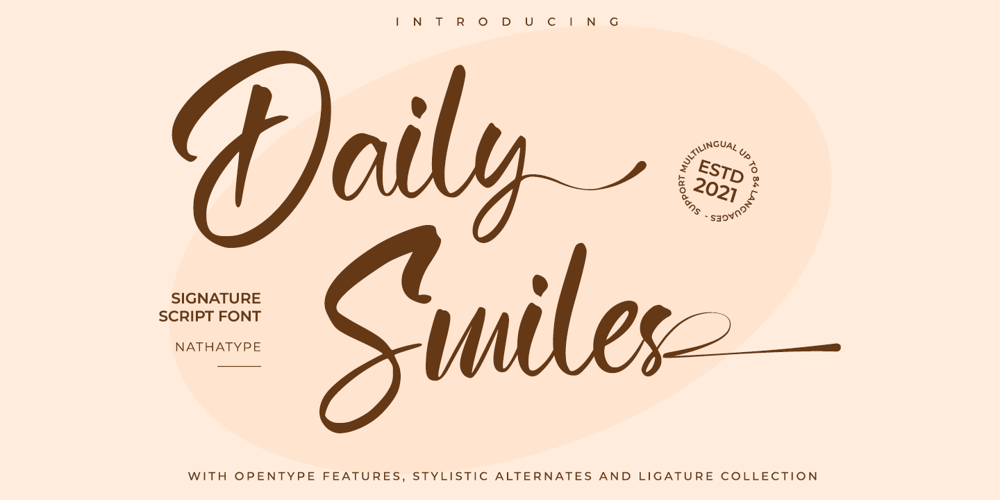
Daily Smiles Font Family was designed by Donis Miftahudin and published by Nathatype. Daily Smiles contains 1 styles and family package options. Are you looking for a font that speaks beauty? Do you dream of creating headings that stand out and inspire creativity, imagination, and endless fun? Wait no more, we will give you the best choice.Daily Smiles-A Signature FontInspired by the recent print design trend, the look of the script typeface is elegant and beautiful. Everything’s well with cursive! Show your opulence and decadence with this fancy font and blow your audience’s mind away as you put these cursive letters in your projects. Every detail of this beautiful font making it easy to present your brand or project in the best light. Go ahead and use it on your website, your social media branding, Pinterest banners, printed invitations, and more!Features: Ligatures Stylistic Sets PUA Encoded Numerals and Punctuation Thank you for downloading premium fonts from Nathatype